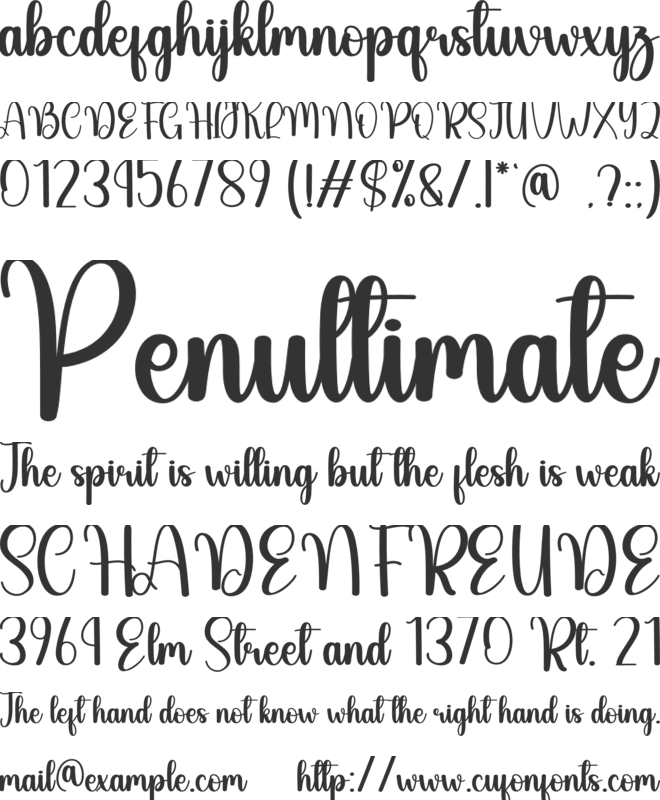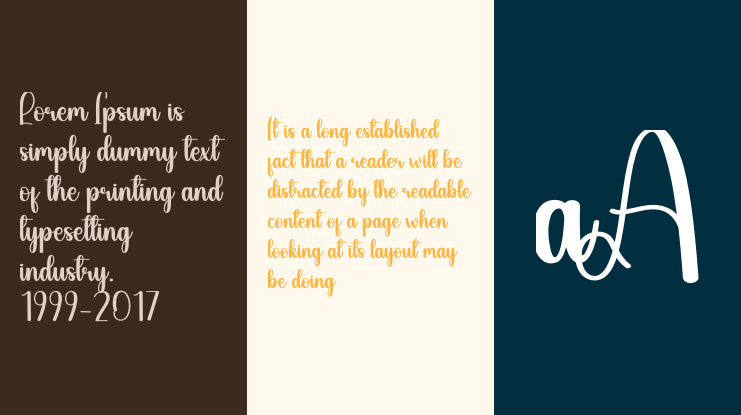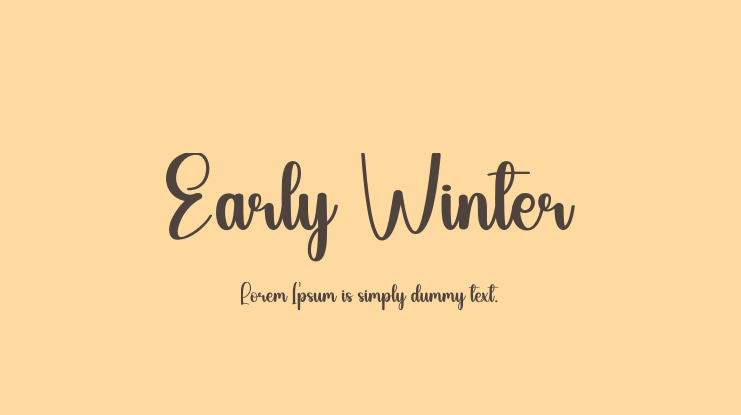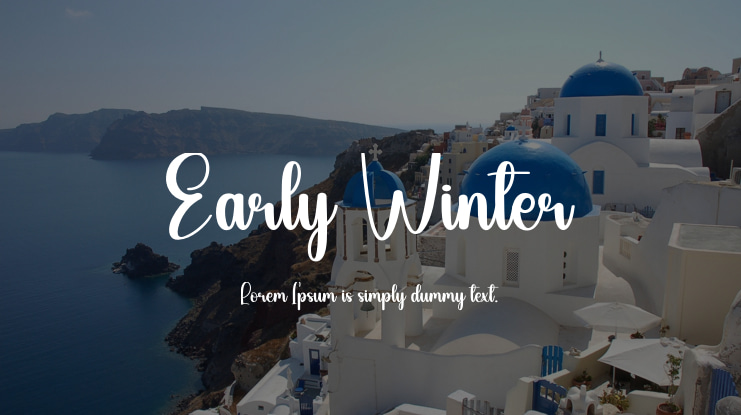
We offer special, creative products designed to provide you with an extraordinary experience. Our latest style of lettering is perfect for various applications such as wall displays, wedding invitations, social media post logos, advertisements, product packaging, product designs, labels, photography, watermarks, invitations, stationery, and any project requiring elegant handwriting.